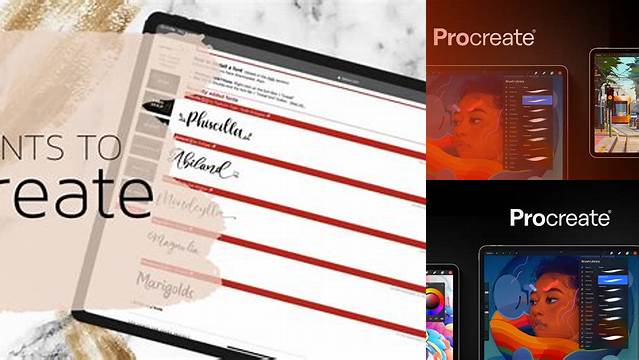
Free Fonts For Procreate On IPad: Unleash Your Creativity
Hey guys! Are you ready to take your Procreate artwork on your iPad to the next level? One of the easiest ways to do that is by using amazing, unique fonts! The best part? You don't have to break the bank to get them. Let's dive into the world of free fonts for Procreate and how they can help you unleash your inner artist.
1. The Importance of Typography in Procreate
Let's talk about why typography is so crucial in your digital art. Typography isn't just about picking a pretty font; it's about communicating your message effectively. A well-chosen font can enhance the mood, convey the right tone, and make your artwork more engaging. Think about it: the font you use for a fun, playful illustration will be different from the one you use for a serious, impactful piece. Choosing the right font is like picking the perfect outfit for an occasion – it sets the stage and makes everything else shine. When you nail your typography, you create a cohesive and visually appealing piece that captures your audience's attention. It's about making sure your words and visuals work together harmoniously to deliver a powerful message. So, next time you're working on a Procreate project, give your font choices some extra thought – it can make all the difference.
4. Best Free Script Fonts for Procreate
Script fonts can add a touch of elegance and personality to your Procreate projects. They're perfect for creating beautiful lettering, invitations, and adding a handwritten feel to your designs. One of the best free script fonts out there is "Brush Script MT." It has a classic, flowing style that works well for various projects. Another great option is "Pacifico," which has a relaxed, beachy vibe. For something a bit more modern, check out "Great Vibes." It features elegant loops and flourishes that make it stand out. "Kaushan Script" is another fantastic choice, offering a bold and dynamic look. And if you're looking for something delicate and refined, "Playfair Display" in its italic version can be a great option. When using script fonts, make sure they're legible, especially in smaller sizes. Experiment with different sizes and spacing to find the perfect balance. These free script fonts can really elevate your artwork and give it that extra touch of sophistication.
5. Top Free Sans-Serif Fonts for Procreate
Sans-serif fonts are your go-to for clean, modern designs. They're super versatile and work well in a variety of contexts, from logos to body text. One of the best free sans-serif fonts is "Roboto." It's clean, readable, and comes in a variety of weights, making it perfect for almost any project. Another fantastic option is "Open Sans," which is known for its friendly appearance and excellent legibility. "Lato" is another great choice, offering a balanced and elegant design. If you're looking for something a bit bolder, check out "Montserrat." It has a strong, geometric structure that makes it stand out. And for a more minimalist look, "Raleway" is a great option. When using sans-serif fonts, pay attention to the spacing between letters and lines to ensure readability. Experiment with different weights and sizes to find the perfect fit for your design. These free sans-serif fonts will give your Procreate projects a polished and professional look.
6. Must-Have Free Serif Fonts for Procreate
Serif fonts bring a touch of tradition and sophistication to your Procreate artwork. They're great for headlines, logos, and any design that needs a classic feel. One of the must-have free serif fonts is "Merriweather." It's highly readable and has a warm, inviting feel. Another excellent choice is "Lora," which features beautiful curves and a contemporary look. For a more traditional serif font, check out "Bitter." It's designed specifically for readability on screens, making it perfect for digital art. "Playfair Display" is another fantastic option, offering a high-contrast design that adds a touch of elegance. And if you're looking for something a bit more unique, "Arvo" is a great choice with its geometric and slightly quirky design. When using serif fonts, be mindful of the spacing between letters and lines to ensure readability. Experiment with different weights and sizes to find the perfect balance for your design. These free serif fonts will add a touch of class to your Procreate projects.
7. Unique Display Fonts for Procreate (Free)
Want to make your artwork pop? Display fonts are the way to go! These fonts are designed to be eye-catching and attention-grabbing, perfect for headlines, posters, and anything that needs to stand out. One fantastic free display font is "Bebas Neue." It's a clean, sans-serif font with a tall, condensed design that makes it perfect for headlines. Another great option is "Oswald," which has a modern, slightly rounded look. For something a bit more playful, check out "Luckiest Guy." It's a fun, hand-drawn font that adds a touch of whimsy. "ChunkFive" is another excellent choice, offering a bold, slab-serif design that commands attention. And if you're looking for something truly unique, "Amatic SC" is a great option with its hand-drawn, condensed style. When using display fonts, remember that a little goes a long way. Use them sparingly to create impact and avoid overwhelming your design. These free display fonts will give your Procreate projects that extra wow factor.
8. Combining Fonts Effectively in Procreate
Combining fonts effectively is an art in itself. The key is to create contrast and harmony. A good rule of thumb is to pair a serif font with a sans-serif font. For example, you could use "Merriweather" for your headlines and "Open Sans" for your body text. This creates a visual hierarchy and makes your design more readable. Another tip is to choose fonts from the same font family. Many font families come with a variety of weights and styles, which can create subtle variations without clashing. Avoid using too many different fonts – two or three is usually enough. Also, make sure the fonts you choose complement each other in terms of mood and style. A formal serif font might not pair well with a playful script font. Experiment with different combinations and see what works best for your design. Effective font pairing can elevate your Procreate projects and make them more visually appealing.
9. Kerning and Leading: Essential Typography Tips
Kerning and leading are essential typography terms that can significantly impact the readability and visual appeal of your text. Kerning refers to the spacing between individual letters, while leading refers to the spacing between lines of text. Adjusting these settings can make a huge difference in how your text looks and feels. In Procreate, you can adjust kerning and leading in the text settings panel. Experiment with different values to find the perfect balance. Too little kerning can make your text look crowded, while too much can make it look disjointed. Similarly, too little leading can make your lines of text overlap, while too much can make your text feel disconnected. Pay attention to these details, and your typography will look much more polished and professional. Mastering kerning and leading is a key step in creating beautiful and effective typography in your Procreate projects.